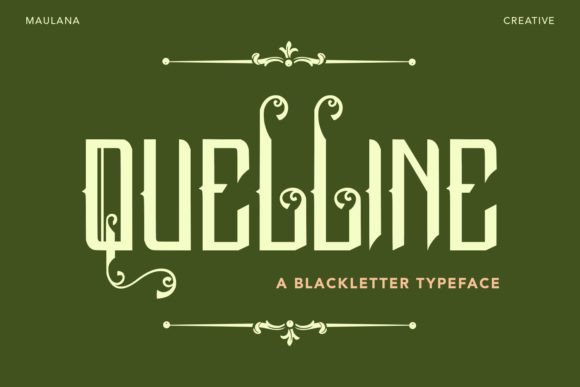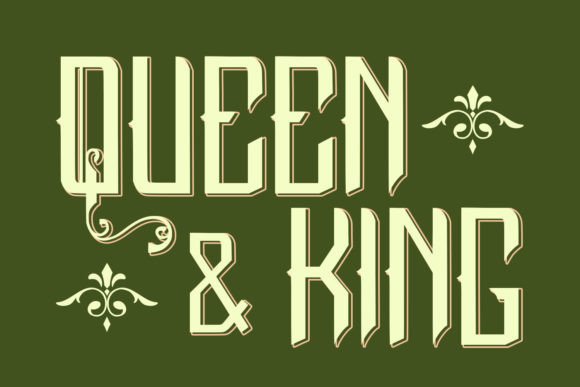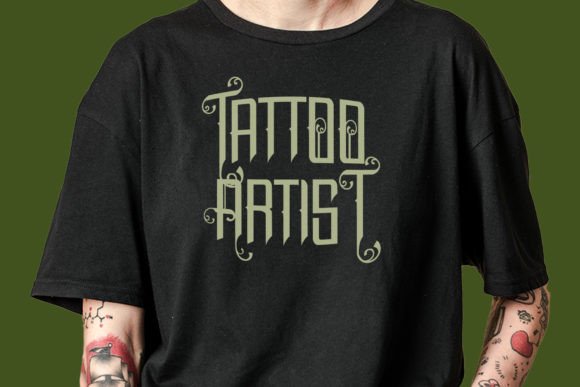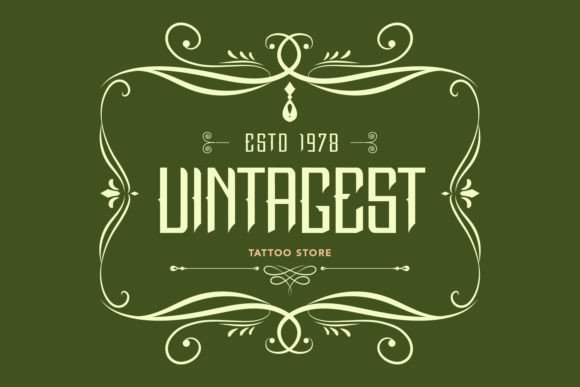
Quelline Font
About the Quelline Font
Experience the unique personality of Quelline Font, a font designed for impact. Introducing Quelline Font. Are you looking for a bold hand-lettering decorative font that has a medieval gothic feeling? We can help! Try to download our Quelline Font. Suitable to use for any occasion such as a book, logo, print, game, event, music, invitation, and others.
Quelline’s bold, medieval-inspired aesthetic makes it ideal for headlines, logos, and short, impactful text within posters or invitations. Its decorative nature shines in branding projects requiring a strong, historical feel, particularly for products or services related to fantasy, gaming, or heritage brands. However, its highly decorative forms and large x-height make it unsuitable for body text or lengthy paragraphs; readability suffers at smaller sizes.
Consider pairing Quelline with a clean sans-serif like Montserrat for a balanced contrast, or a classic serif such as Garamond for a more traditional feel. For a softer contrast, a script font with less pronounced flourishes would work, but avoid pairing it with other highly decorative fonts to prevent visual overload.
The font exudes a powerful, dramatic personality, best suited for conveying strength, history, or a touch of gothic romance. Avoid using it where a friendly, approachable, or minimalist aesthetic is required.
Quelline Font Usage Examples
Quelline Font Example